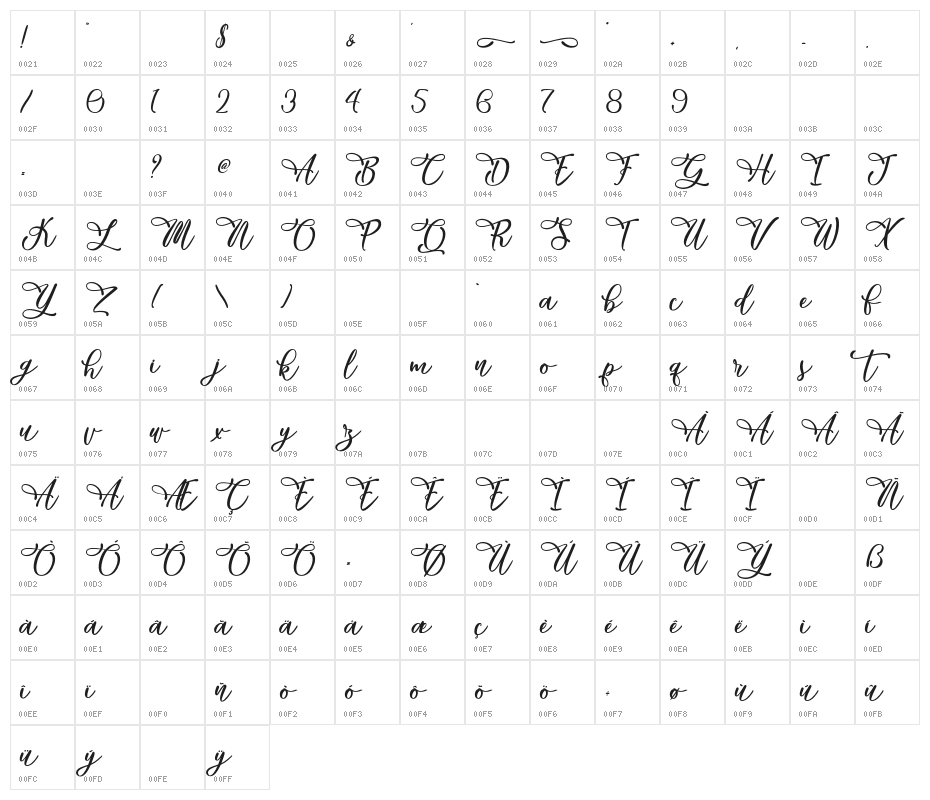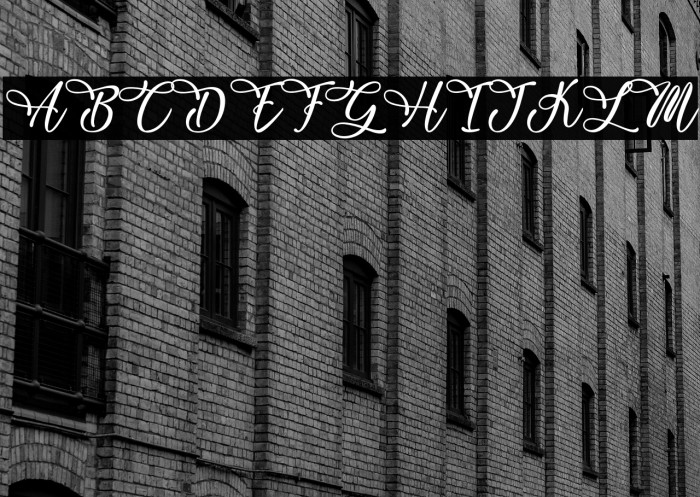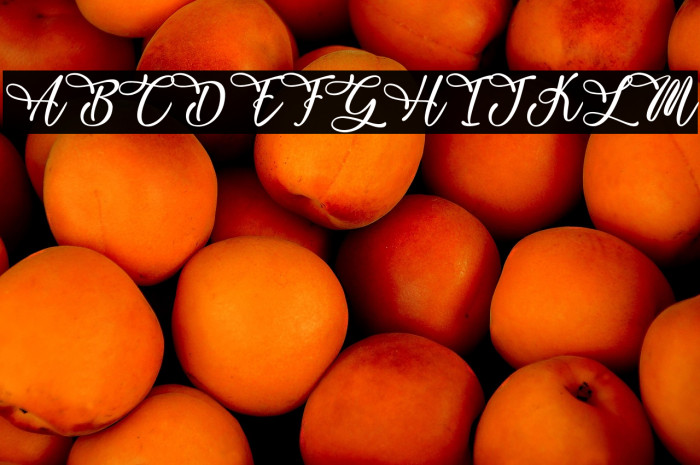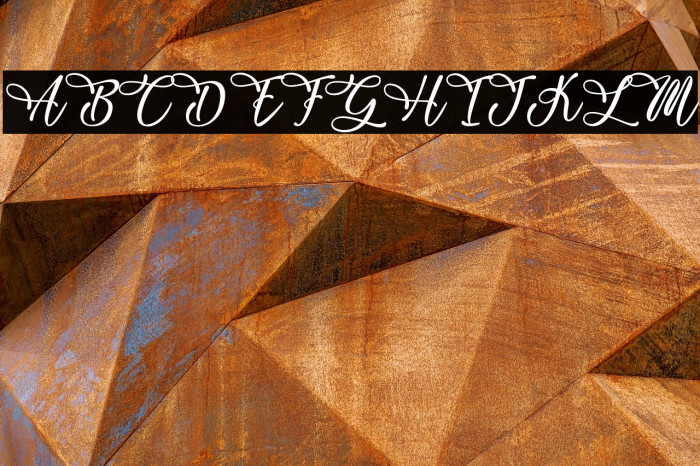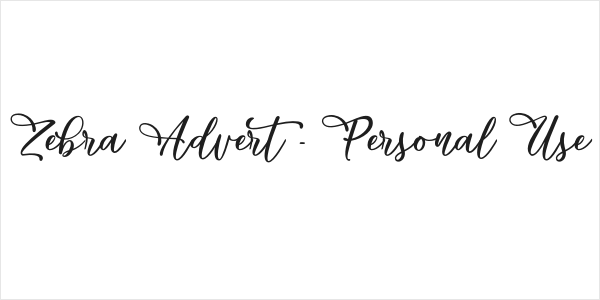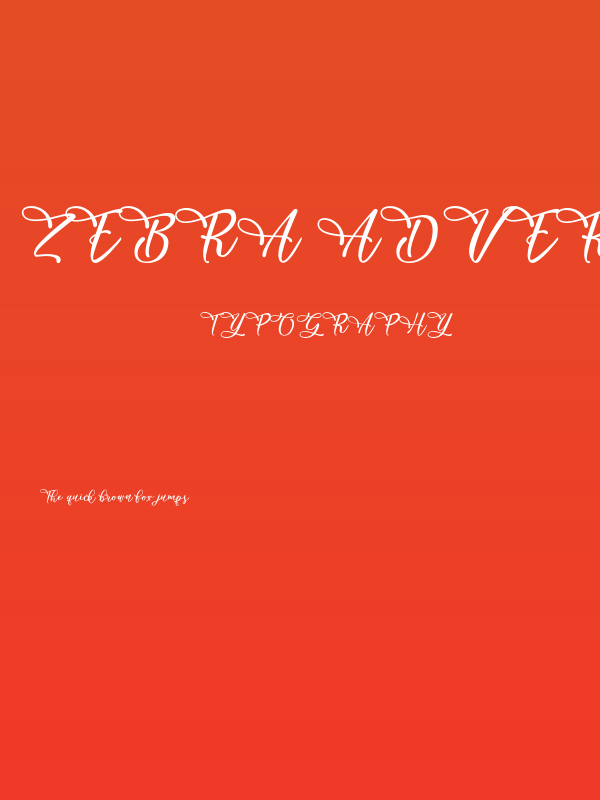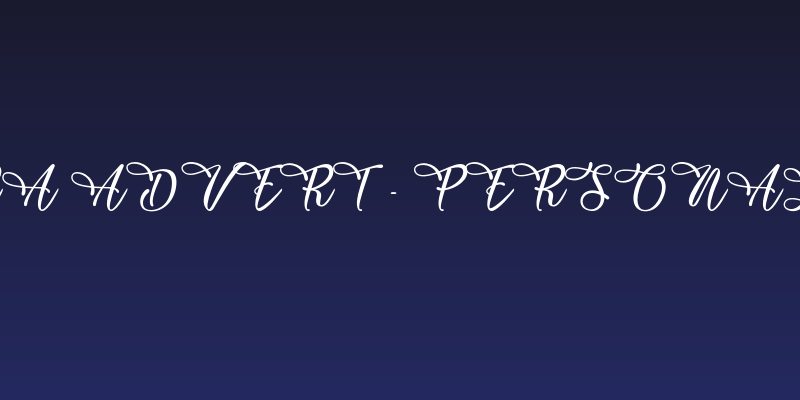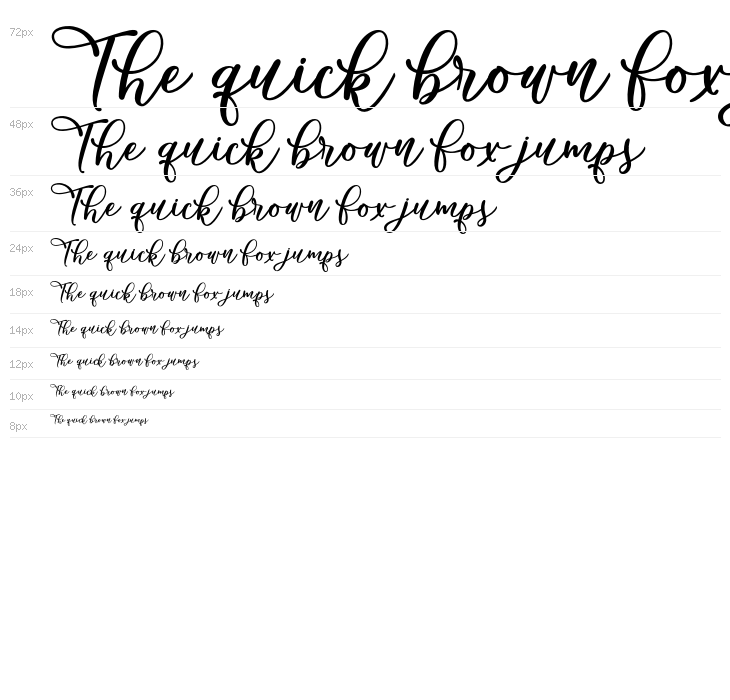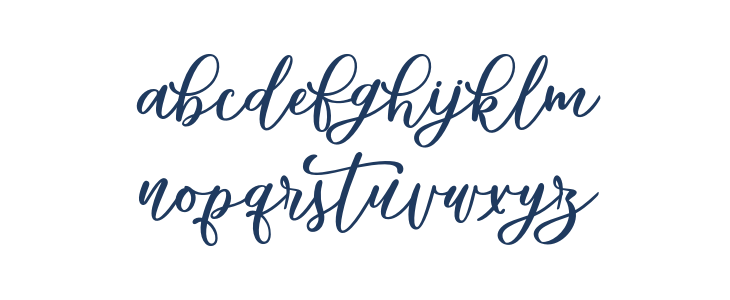
Zebra Advert - Personal Use Font
Zebra Advert - Personal Use Description
This font features an elegant and flowing script style, characterized by its intricate swirls and loops that give it a sophisticated and artistic appearance. The uppercase letters are adorned with decorative flourishes, while the lowercase letters maintain a smooth and connected cursive form. The numerals are stylishly curved, complementing the overall aesthetic. Special characters, including punctuation marks and symbols, are designed with the same graceful flair, making this font ideal for creative and decorative applications.
| Proposed Projects | Ideal for wedding invitations, greeting cards, branding projects, and elegant signage. |